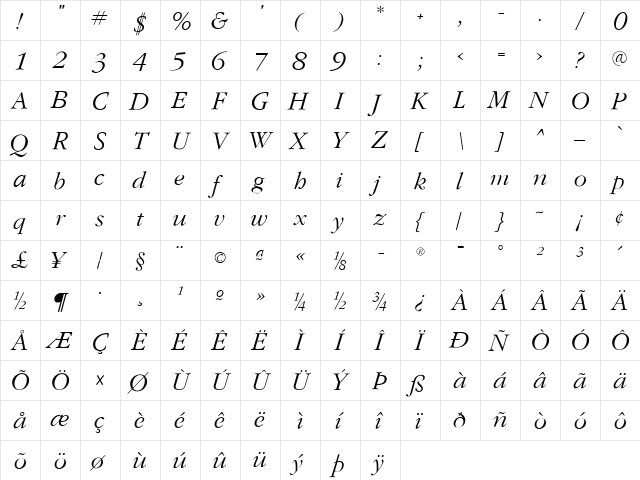
GaramondFLF-Italic Regular
Design Context for GaramondFLF-Italic Typeface
GaramondFLF-Italic is a composed and adaptable typeface that performs quietly and consistently across a wide range of design contexts. Its italic angle brings a sense of urgency and motion to the letterforms.
Pro Tip: Try GaramondFLF-Italic for annotation and caption copy alongside an upright companion — the contrast in angle creates a dynamic but ordered typographic system.